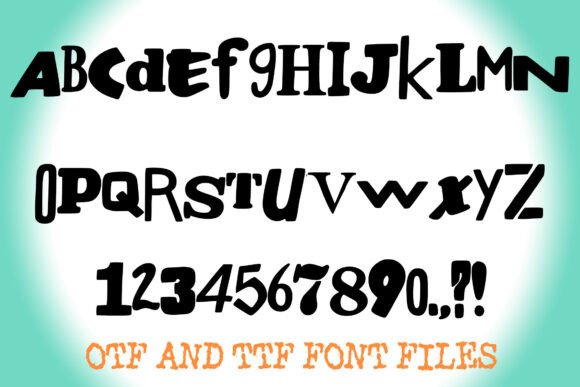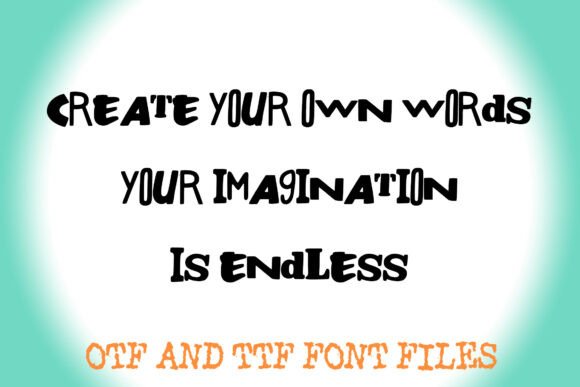
Introduction to Random Alphabet Font
Unleash the unexpected with the Random Alphabet Font.
This truly unique display typeface offers an arresting, hand-drawn aesthetic where no two characters quite match Featuring a chaotic mix of irregular serifs, playful sans-serif curves, and inconsistent baselines, this font immediately conveys a sense of urgency, mystery, or raw artistic energy, mimicking the look of notes assembled from cut-out, random letters.